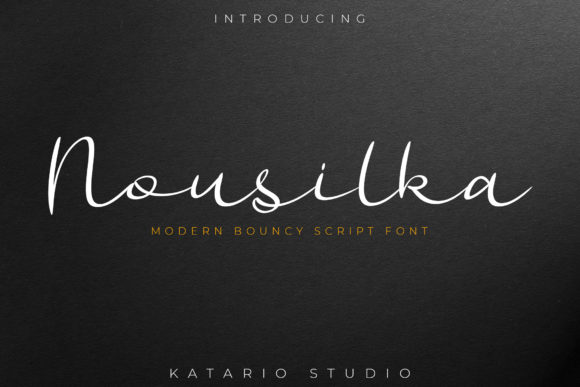
Immerse yourself in the enchanting world of Nousilka, a script font that captures the essence of romance and elegance. With its graceful curves and playful personality, this font is the perfect choice for adding a touch of charm to your creative projects.
Nousilka's captivating design draws inspiration from the beauty of handwritten calligraphy, effortlessly evoking a sense of intimacy and authenticity. Its fluid strokes and delicate serifs create a visually stunning effect, making it an ideal choice for wedding invitations, branding projects, and other special occasions where a touch of sophistication is desired.
As a script font, Nousilka possesses a natural and organic flow that adds a touch of whimsy to your designs. Its bouncy characters dance across the page, creating a sense of movement and energy that is sure to captivate your audience. Whether you're creating a logo, a poster, or a social media graphic, Nousilka will help you make a lasting impression.
One of the most remarkable features of Nousilka is its versatility. This font shines in a wide range of applications, from formal invitations to playful social media posts. Its ability to effortlessly adapt to different styles and themes makes it a valuable asset for any designer's toolbox.
With Nousilka, you can unleash your creativity and explore endless possibilities. Picture your wedding invitations adorned with Nousilka's elegant script, creating a sense of anticipation and excitement for your special day. Or envision your branding materials infused with Nousilka's charm, leaving a lasting impression on your clients.
Nousilka is more than just a font; it's an invitation to express your individuality and add a touch of magic to your creative endeavors. Embrace the beauty of Nousilka and watch as your designs come to life with a captivating charm that will leave your audience spellbound.